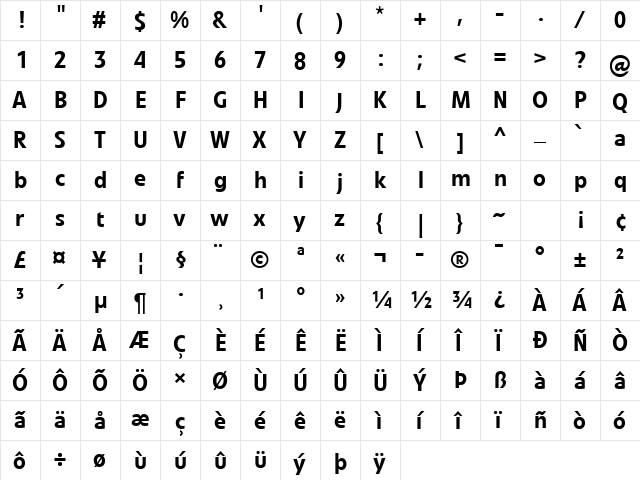
Veto Com Medium
| Foundry | Linotype GmbH |
| Designer | Marco Ganz |
Design Context for Veto Com Typeface
Veto Com takes a measured approach to typography — its balanced proportions and neutral character make it a reliable workhorse for both digital and print work.